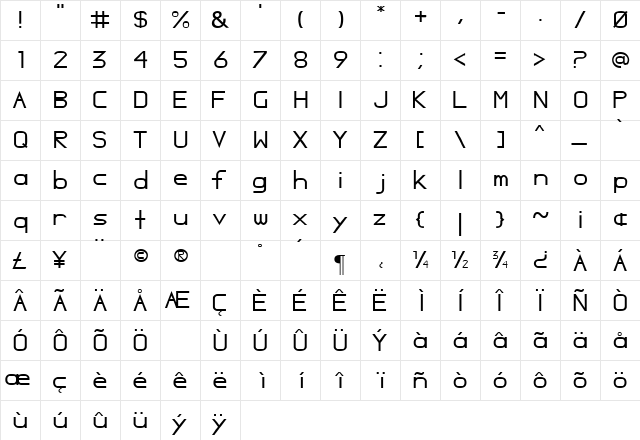
Opossum Regular
Design Context for Opossum Typeface
Opossum offers clean, dependable letterforms without strong stylistic allegiance, making it a practical choice for designers who need flexibility.
Pro Tip: Pair Opossum with a font of contrasting weight or personality to build a more expressive typographic hierarchy.